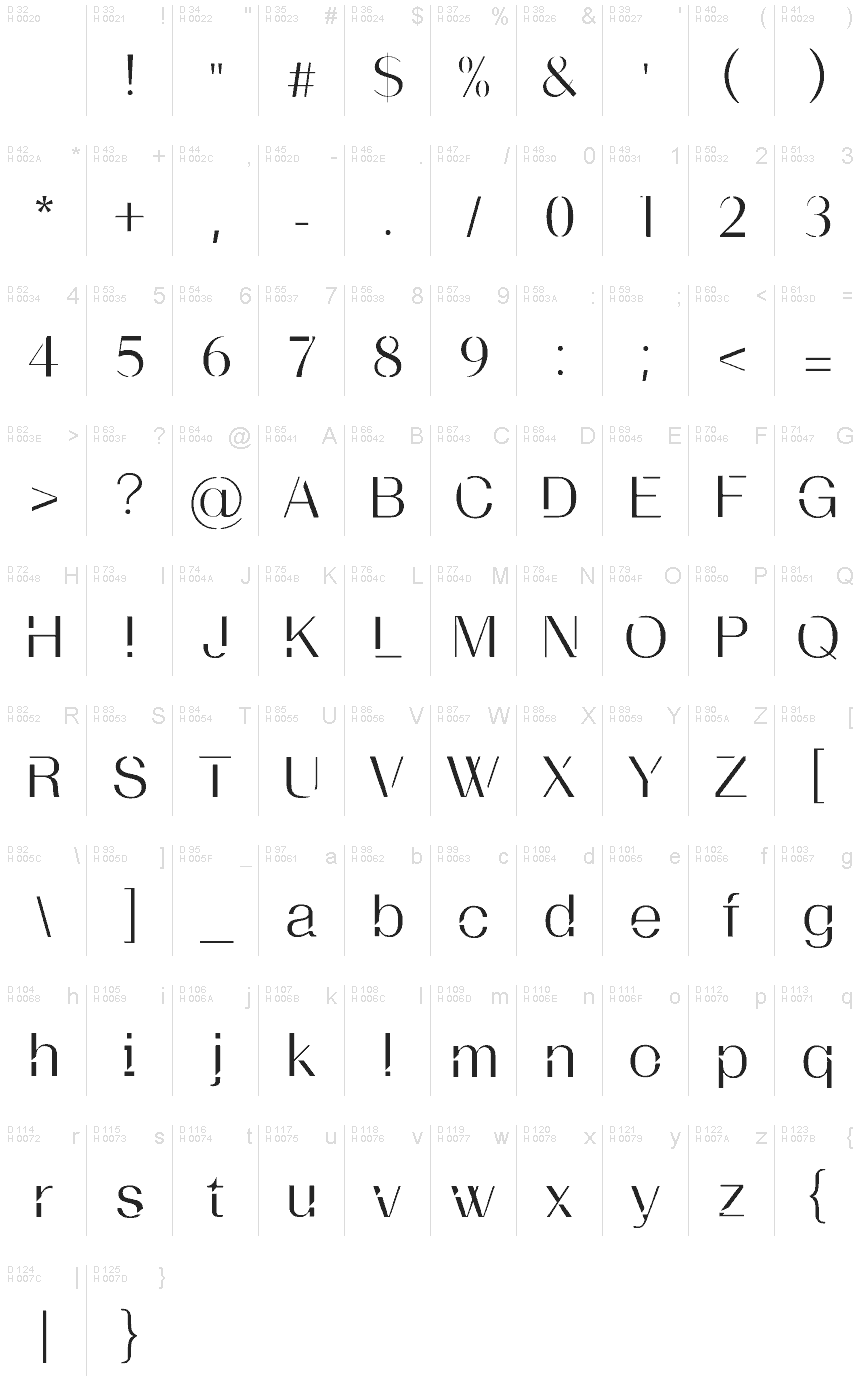
Calton Hosvesk is a stencil-inspired display font that can be downloaded free from UI Creative. Its elegant yet edgy look can add a subtle sense of urgency and urgency or serve as a fun attention grabber. Use it in posters, branding kits, print media designs, logos, business cards, invitation cards, quotes, and decorative displays.